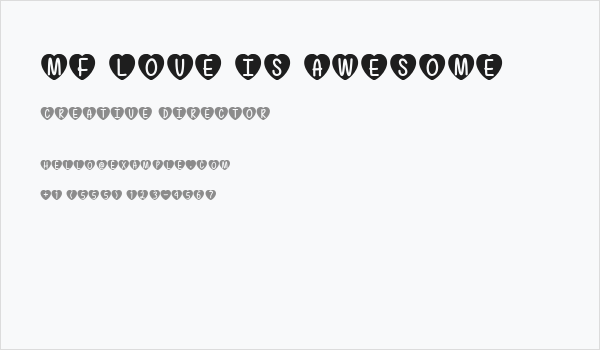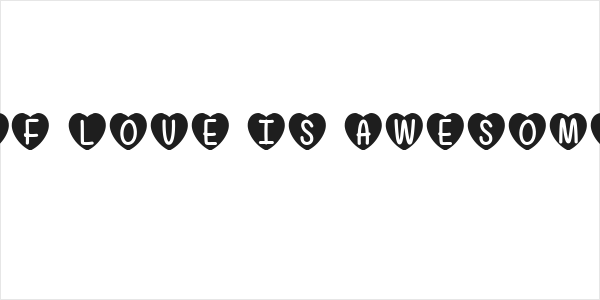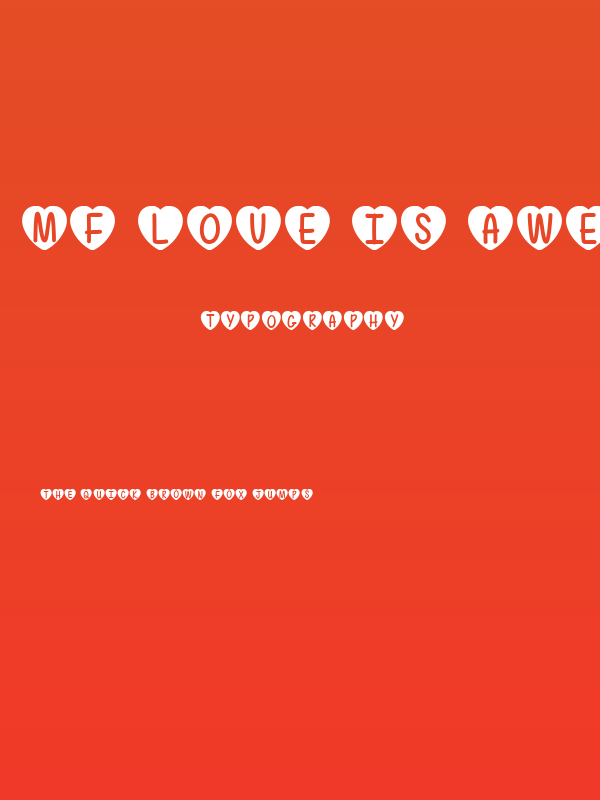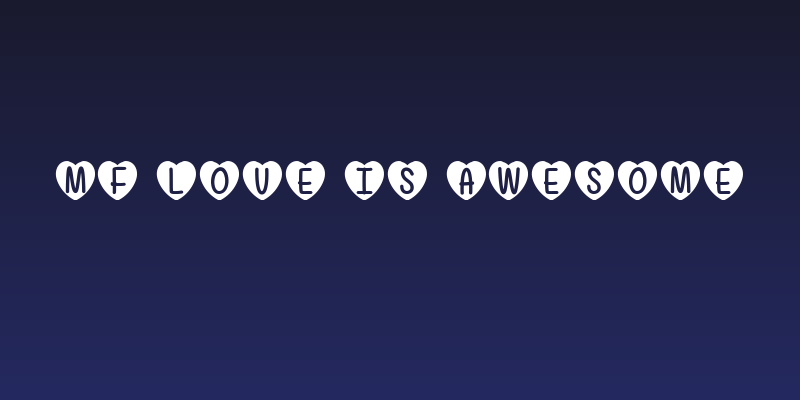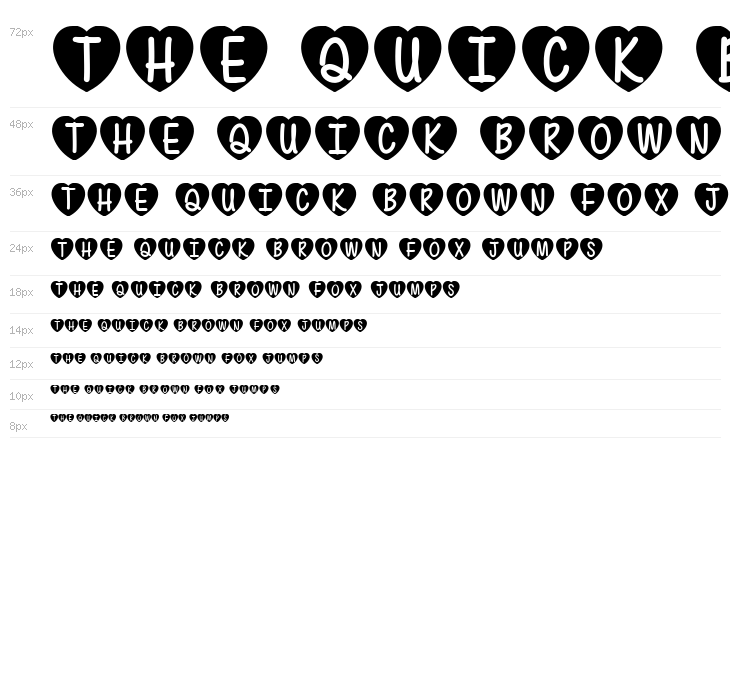
Mf Love Is Awesome Font
Mf Love Is Awesome Description
This playful and decorative font features characters enclosed within heart shapes, creating a whimsical and romantic aesthetic. The letters are bold and rounded, with a hand-drawn feel that adds a personal touch. The uppercase and lowercase letters maintain a consistent style, while the numbers and special characters are equally charming. This font is perfect for projects that aim to convey love, affection, or a fun, lighthearted mood. Its unique design makes it stand out, ideal for creative and artistic expressions.
| Use Case | Headlines, Logos, Greeting Cards |
| Proposed Projects | Ideal for Valentine's Day cards, wedding invitations, love-themed posters, and playful branding materials. |